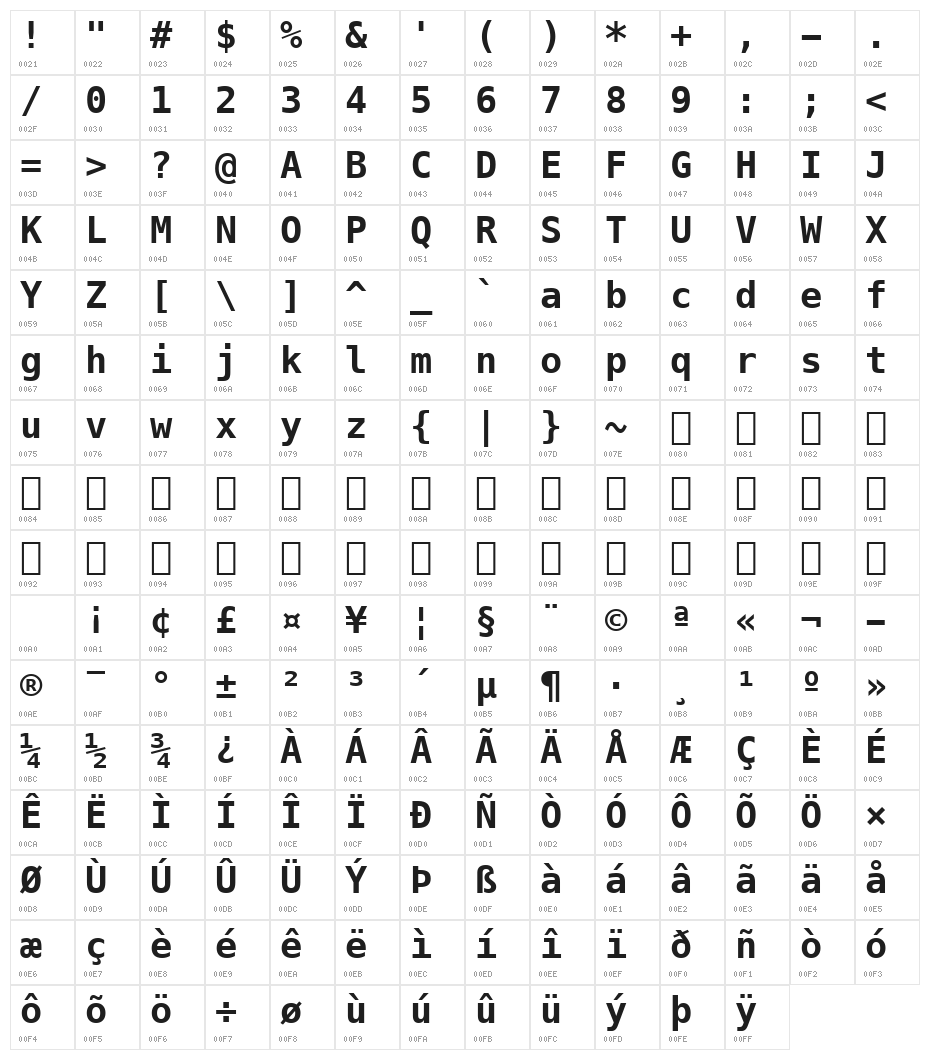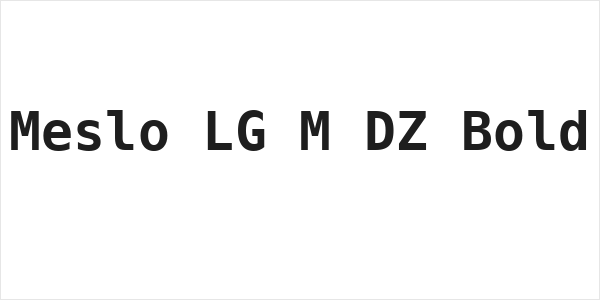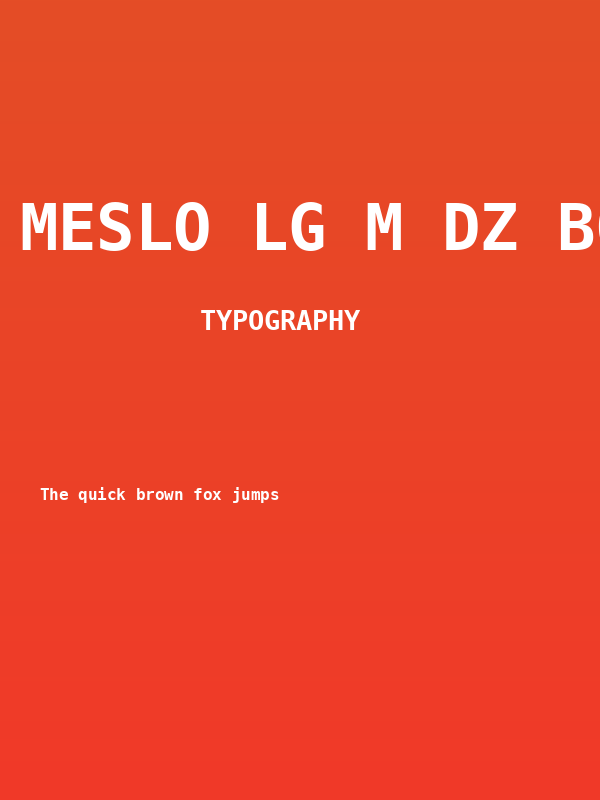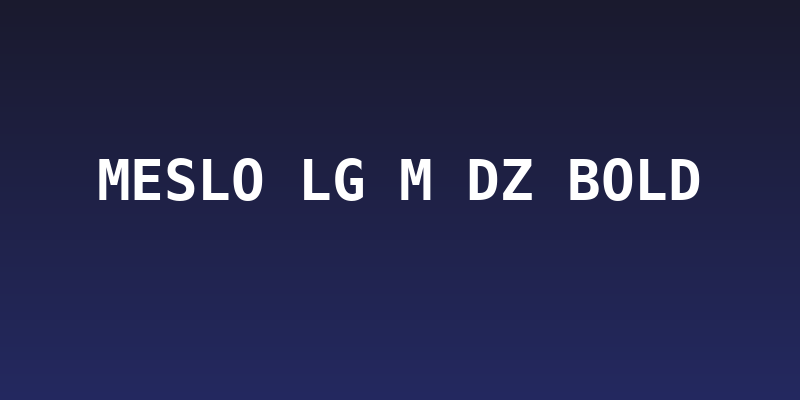
Meslo LG M DZ Bold Font
Meslo LG M DZ Bold Description
This font features a clean, monospaced design with a bold weight, making it highly readable and suitable for coding environments. The characters are evenly spaced, ensuring clarity and precision in text alignment. The uppercase and lowercase letters maintain a consistent style, with rounded edges that add a touch of modernity. The numerals are distinct and easy to differentiate, which is ideal for data presentation. Special characters are clearly defined, enhancing the font's utility in technical and programming contexts.
| Use Case | Code editors, Technical documentation |
| Proposed Projects | Perfect for use in code editors, technical documentation, and data visualization projects. |